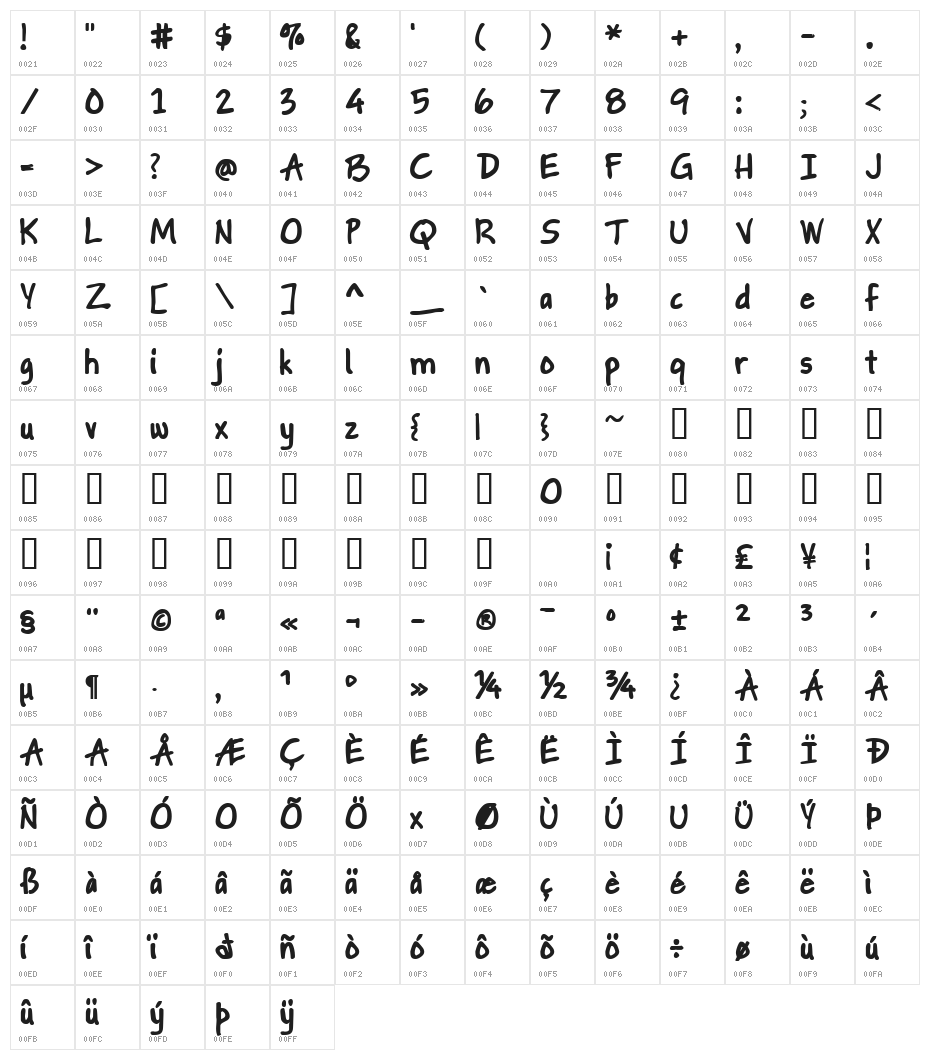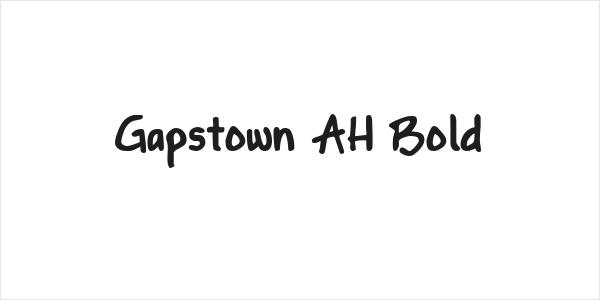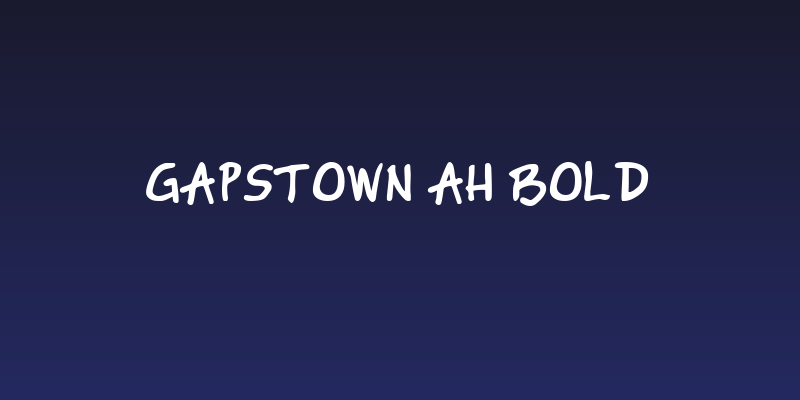
Gapstown AH Bold Font
Gapstown AH Bold Description
This font exhibits a playful and bold handwritten style, characterized by its thick strokes and rounded edges. The letters are slightly irregular, giving it a casual and informal appearance. The uppercase and lowercase letters maintain a consistent weight, contributing to a cohesive look. The numerals and special characters are designed to match the overall style, ensuring uniformity across all glyphs. This font's energetic and friendly vibe makes it suitable for projects that aim to convey warmth and approachability.
| Use Case | Logos, Headlines, Informal Text |
| Proposed Projects | Ideal for children's books, playful branding, casual invitations, and social media graphics. |